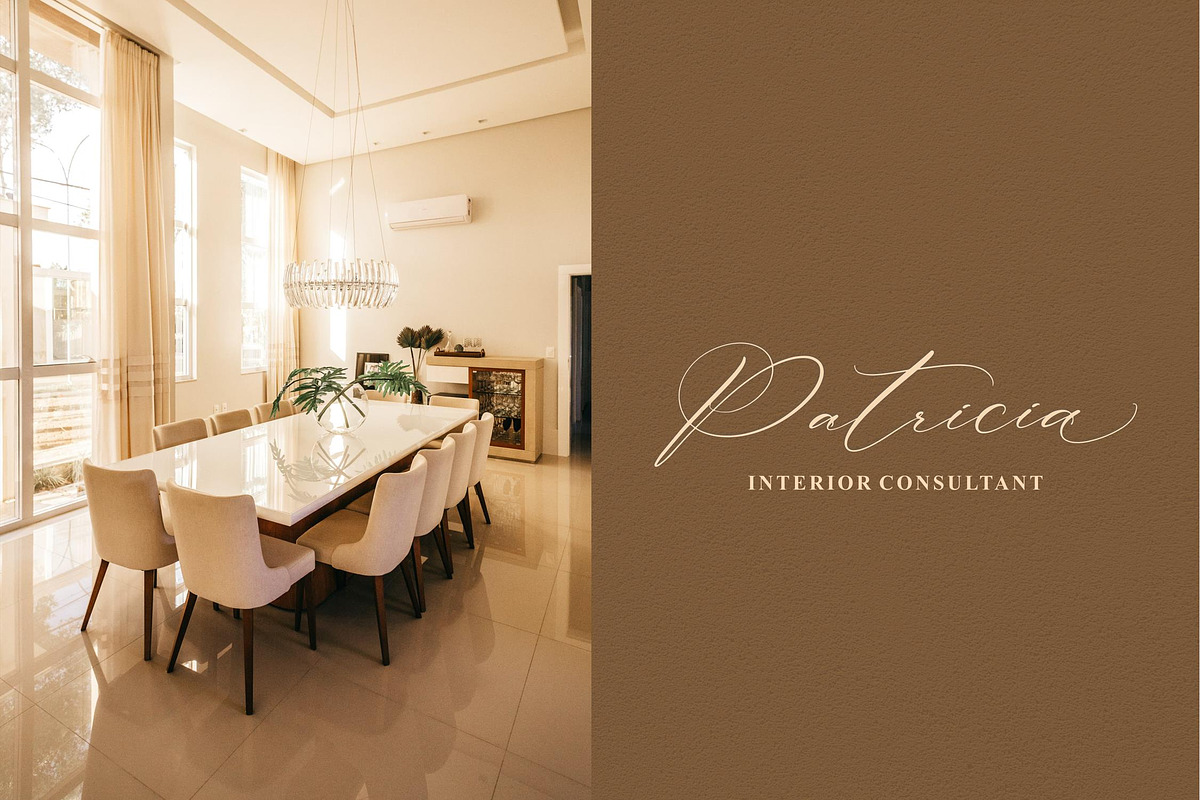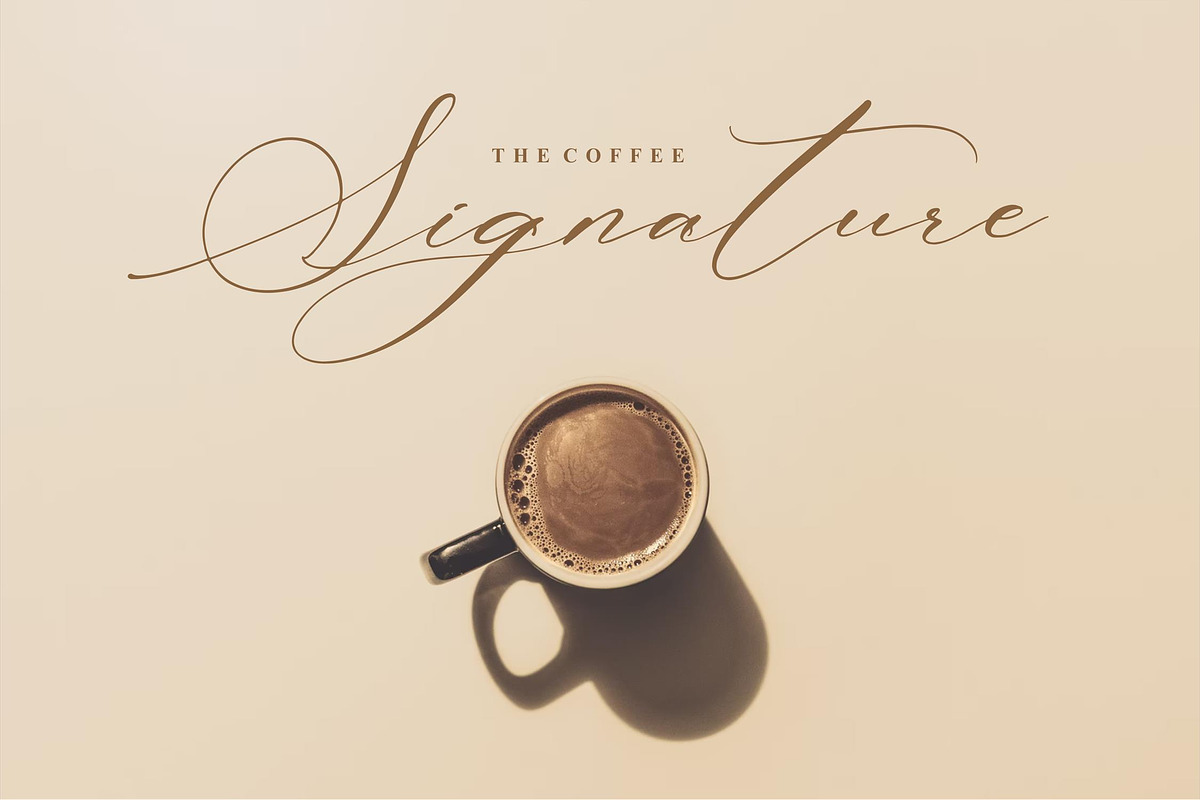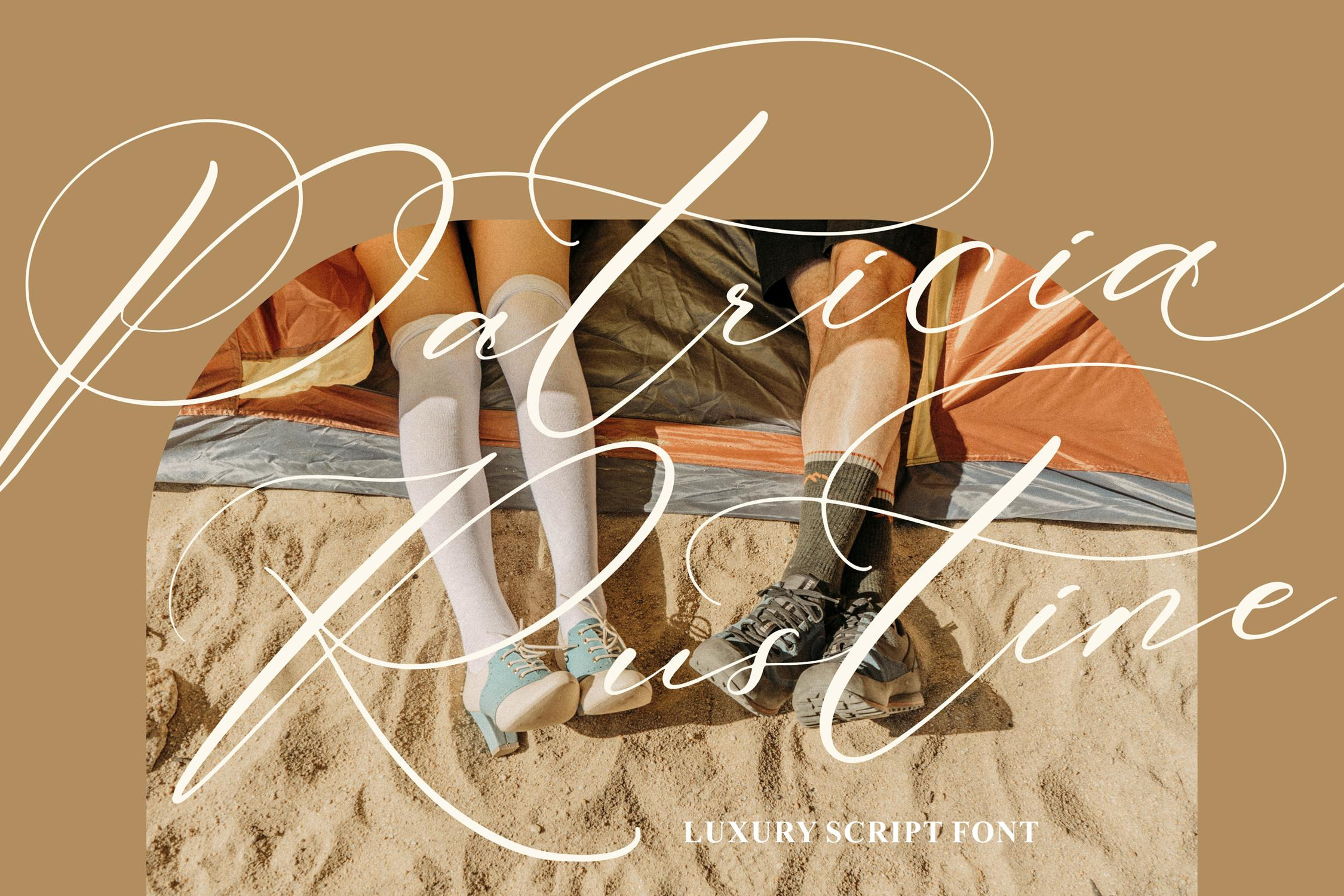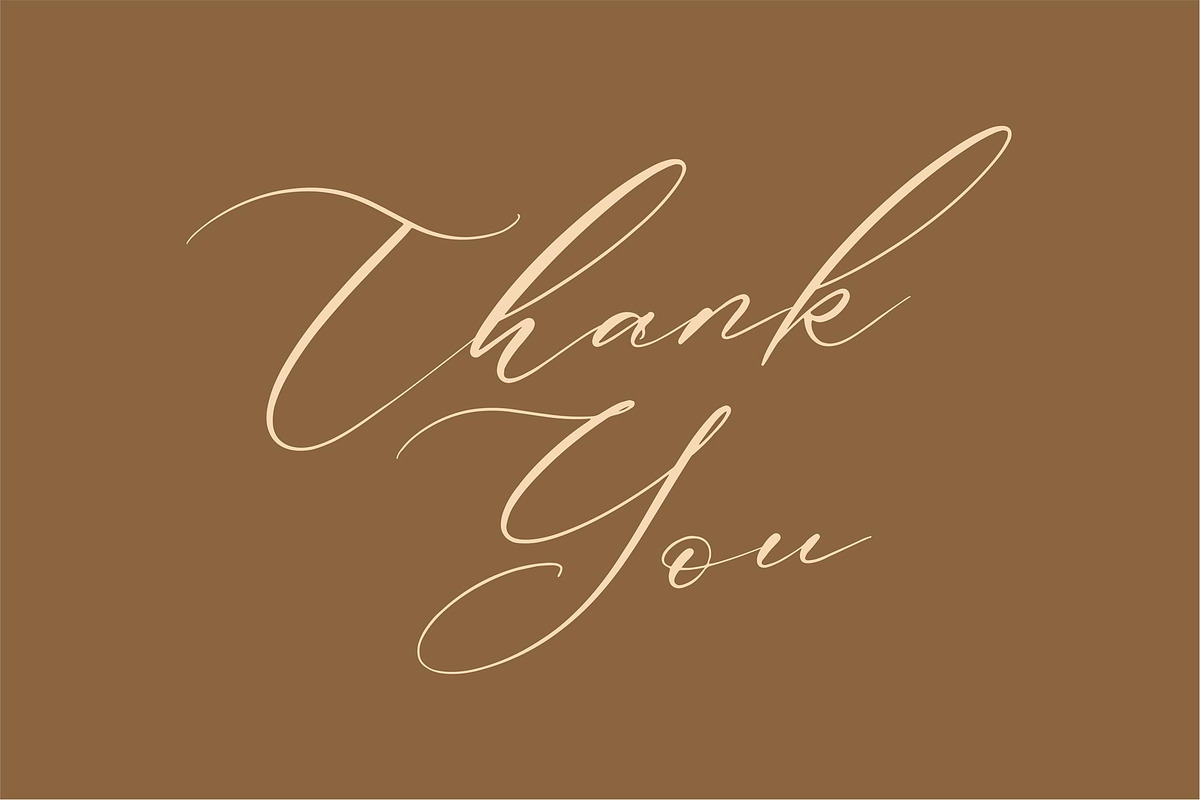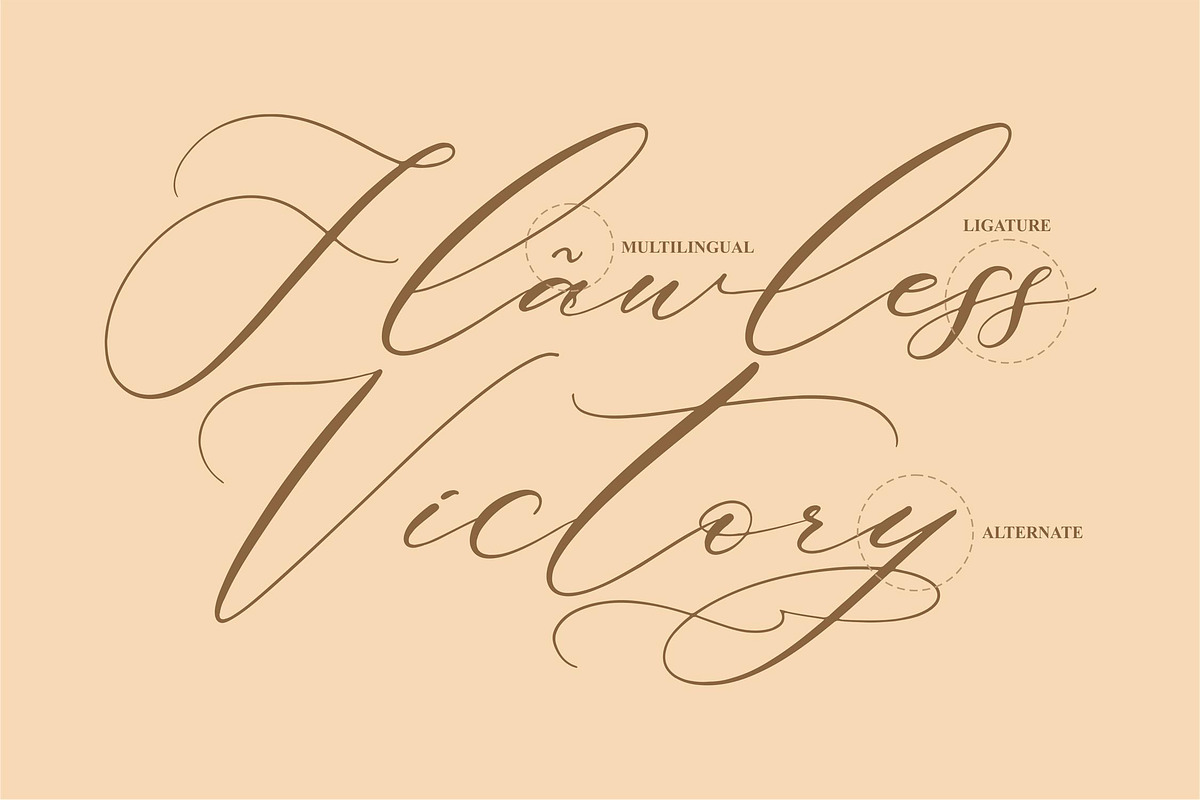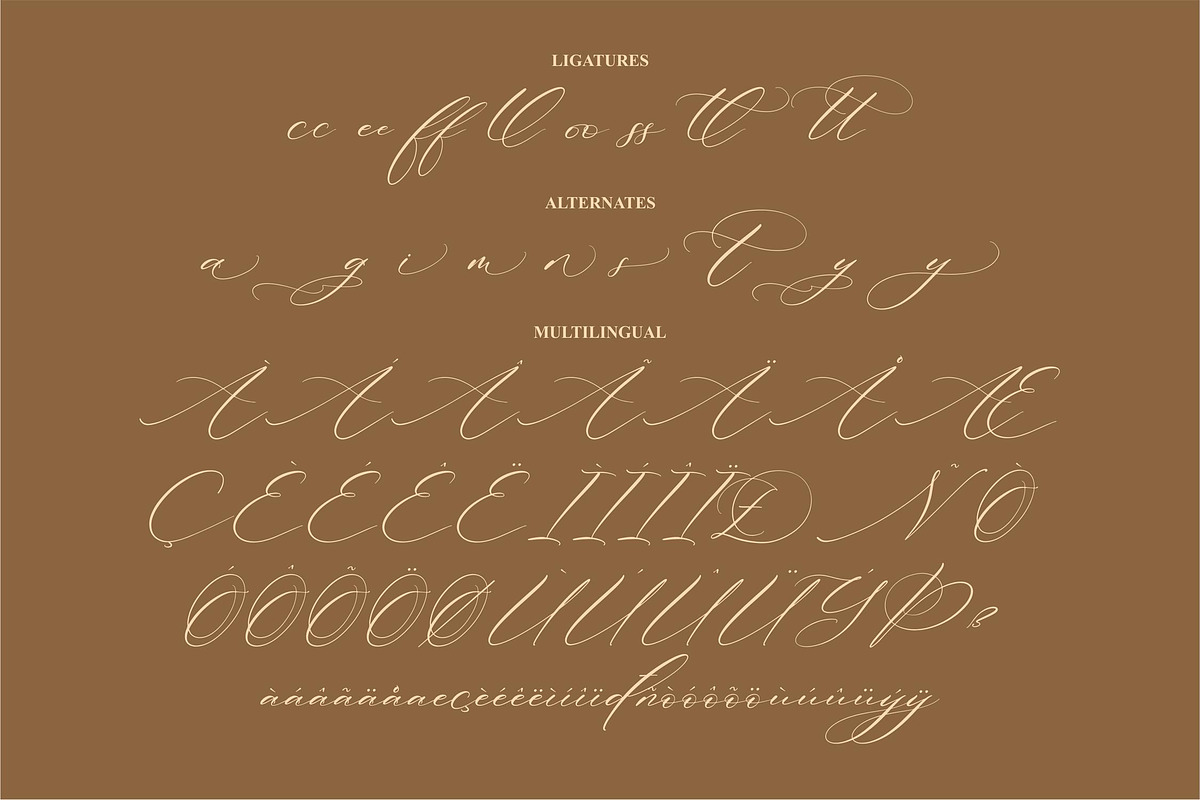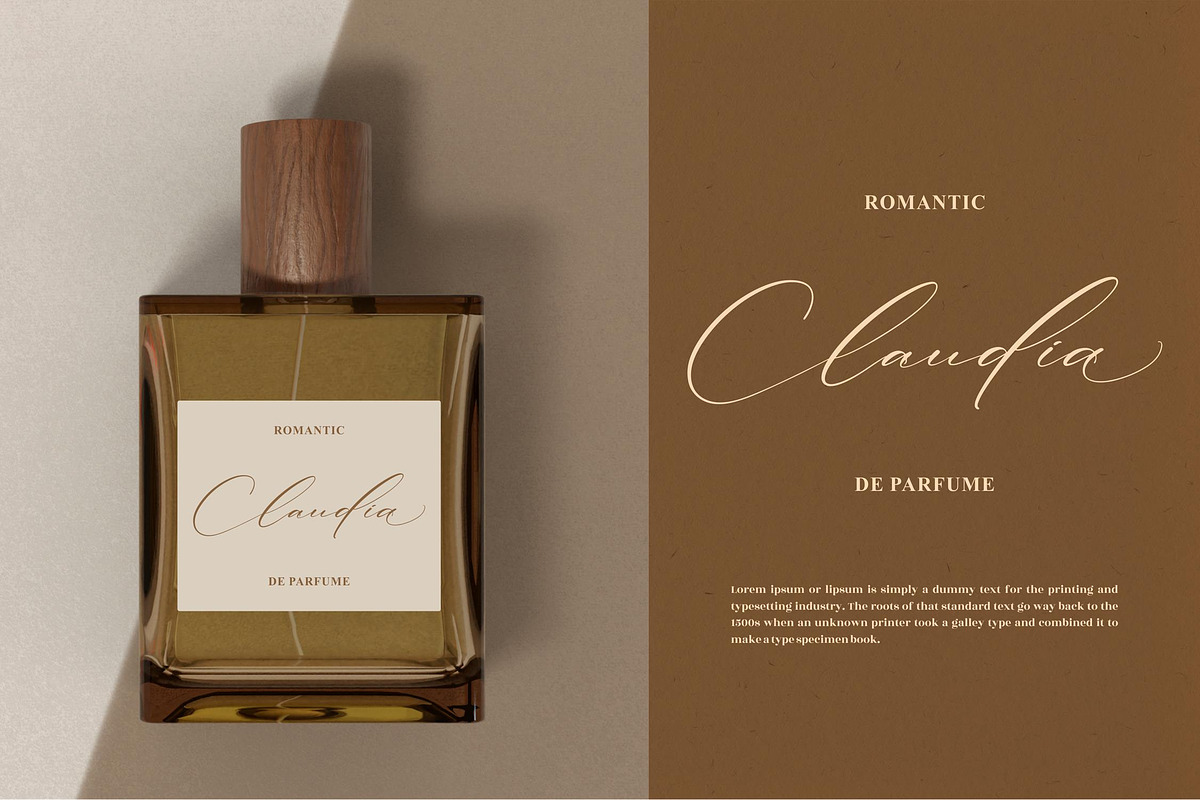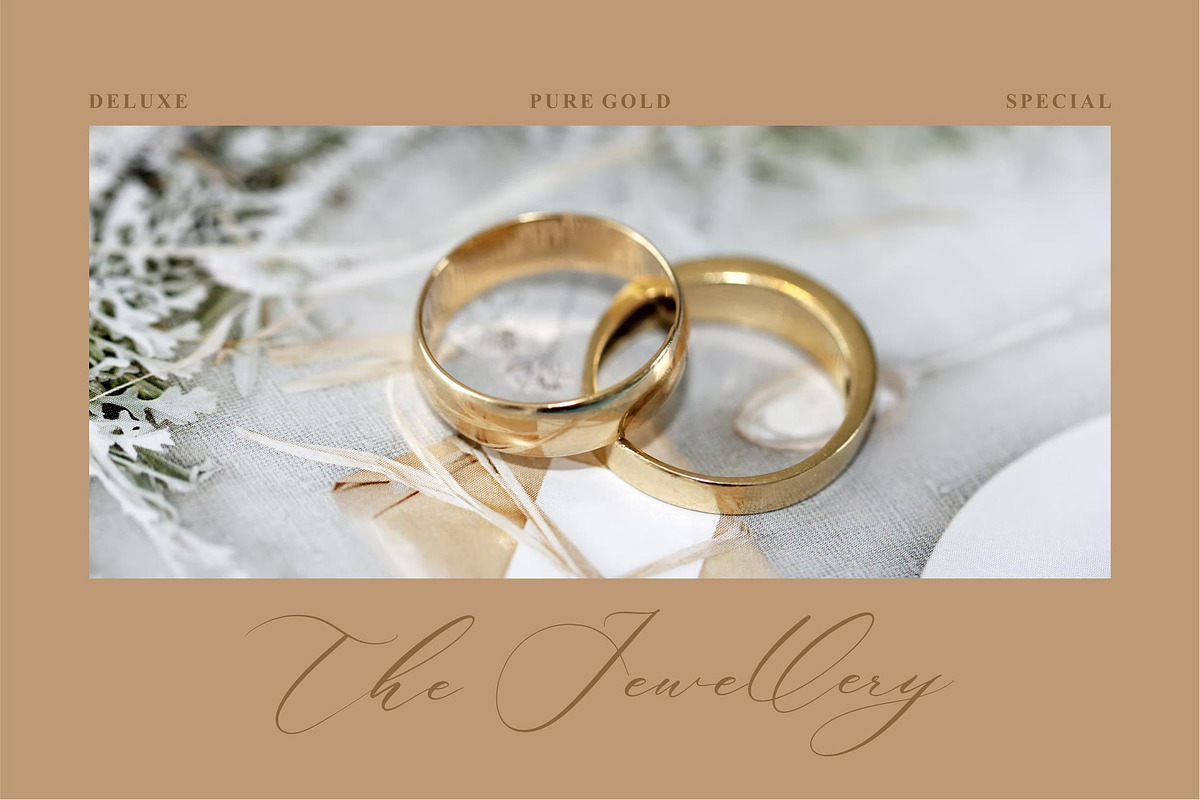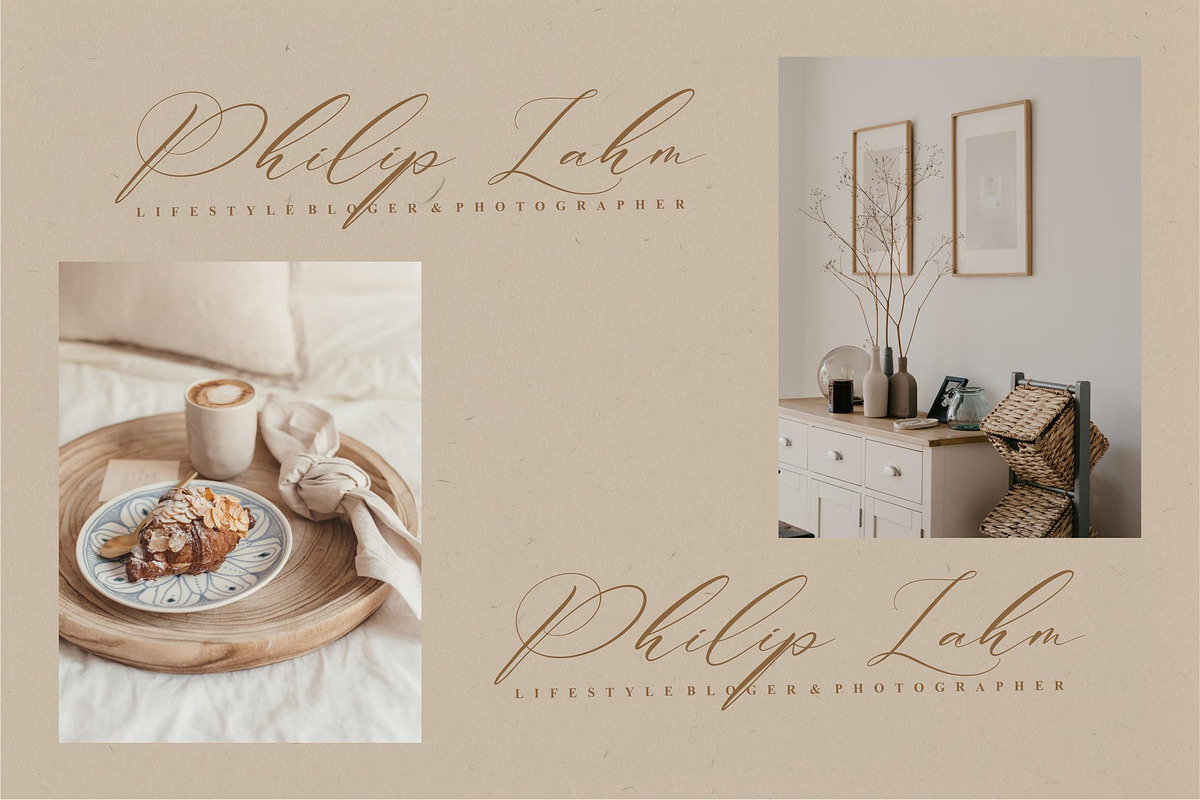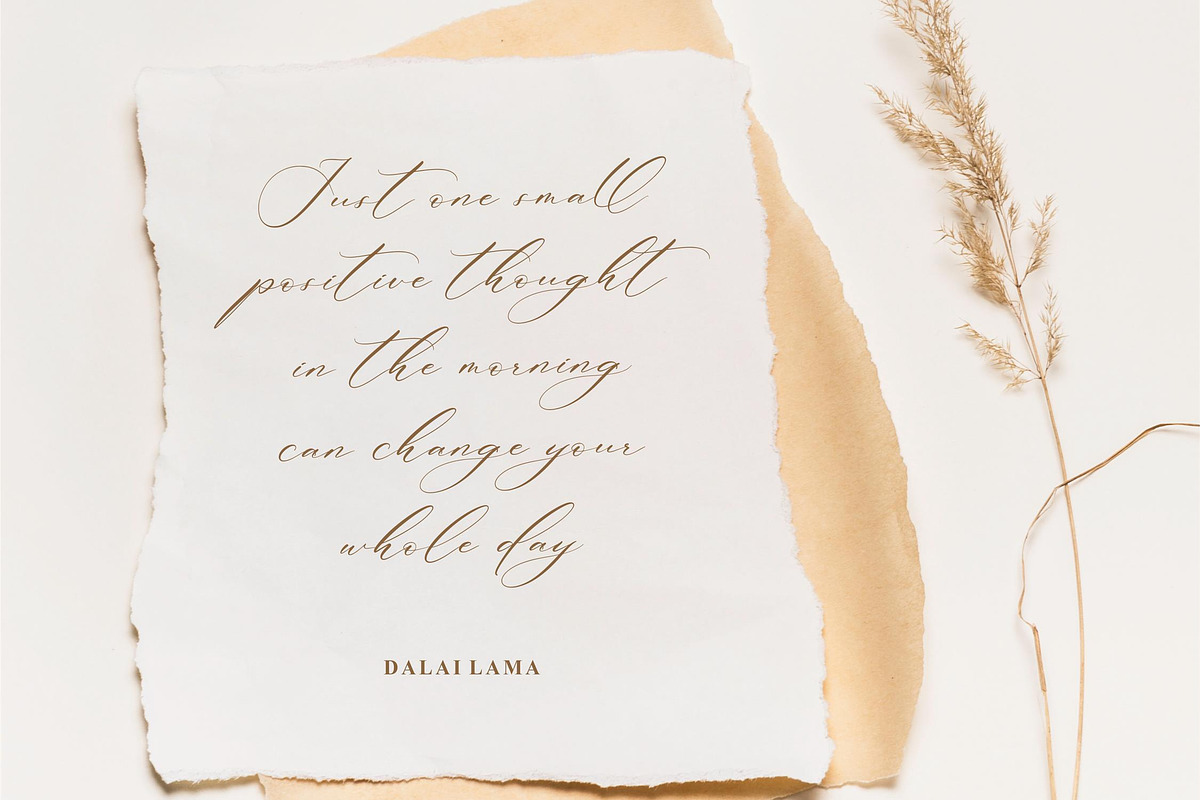
Patricia Rustine Luxury Script Font
Patricia Rustine – Luxury Script Font, from Letterfabric Studio, is a beautiful script font, suitable for any projects such as: logos, branding projects, homeware designs, product packaging, mugs, quotes, posters, shopping bags, t-shirts, book covers, name card, invitation cards, greeting cards, label, photography, watermark, special events, and all your other lovely projects that need a beautiful script taste.